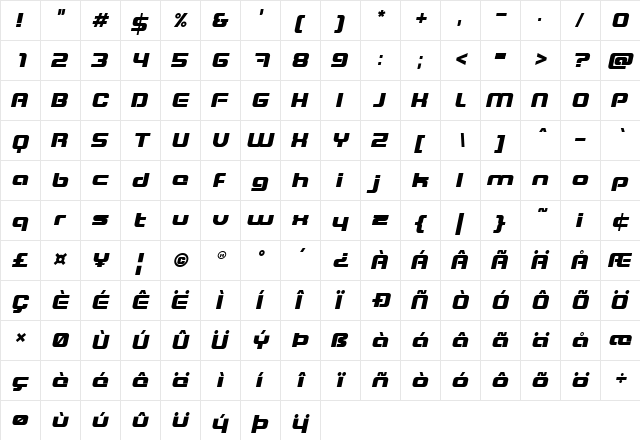
Blaster Italic
Design Context for Blaster Typeface
Blaster is a composed and adaptable typeface that performs quietly and consistently across a wide range of design contexts. The dynamic lean of this cut emphasises speed and emphasis in any layout.
Pro Tip: Try Blaster for annotation and caption copy alongside an upright companion — the contrast in angle creates a dynamic but ordered typographic system.